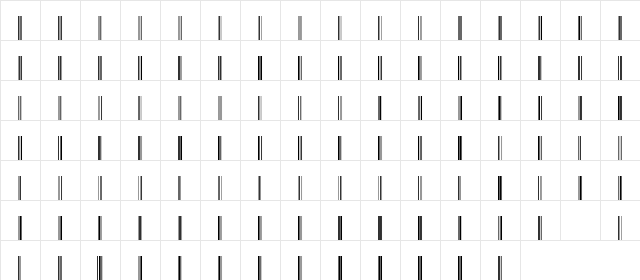
Complete Code128 Regular glyph index. Displaying only characters natively supported by Code128 Regular font.
Code128 uses fixed-width spacing throughout, giving it the structured, systematic character associated with coding environments and technical documentation.